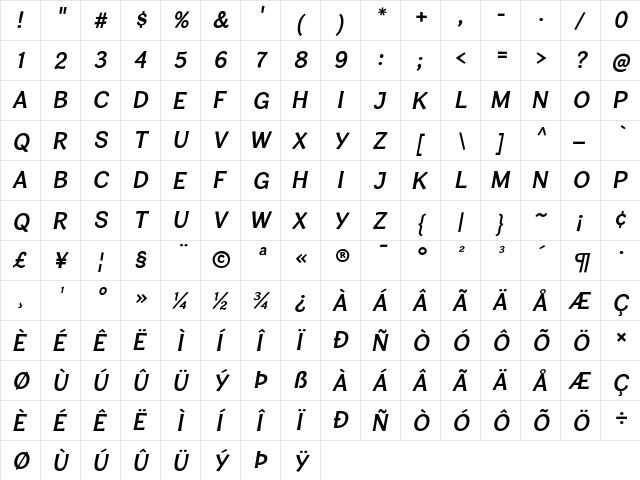
Cardigan Titling SemiBold Italic Font Preview
Design Context for Cardigan Titling Typeface
Cardigan Titling takes a measured approach to typography — its balanced proportions and neutral character make it a reliable workhorse for both digital and print work. Its italic angle brings a sense of urgency and motion to the letterforms. The heavy weight commands attention and anchors typographic hierarchies.
Pro Tip: Use Cardigan Titling for emphasis, pull quotes, and subheadings where its slanted energy can add rhythm to the layout.